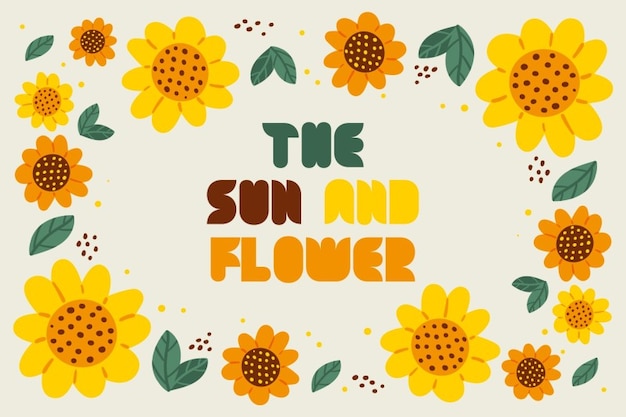
The Sun & Flower
The Sun & Flower Font
This font is a breath of fresh, floral air in the world of typography. With its bold and rounded letterforms, it exudes a sense of natural beauty and organic charm. Each letter blooms like a sunflower, making it ideal for designs that celebrate the beauty of nature. Whether you're designing garden-themed invitations or crafting eco-friendly branding, this font brings the sunny warmth of sunflowers to your words, making them bloom with creativity and cheerfulness.